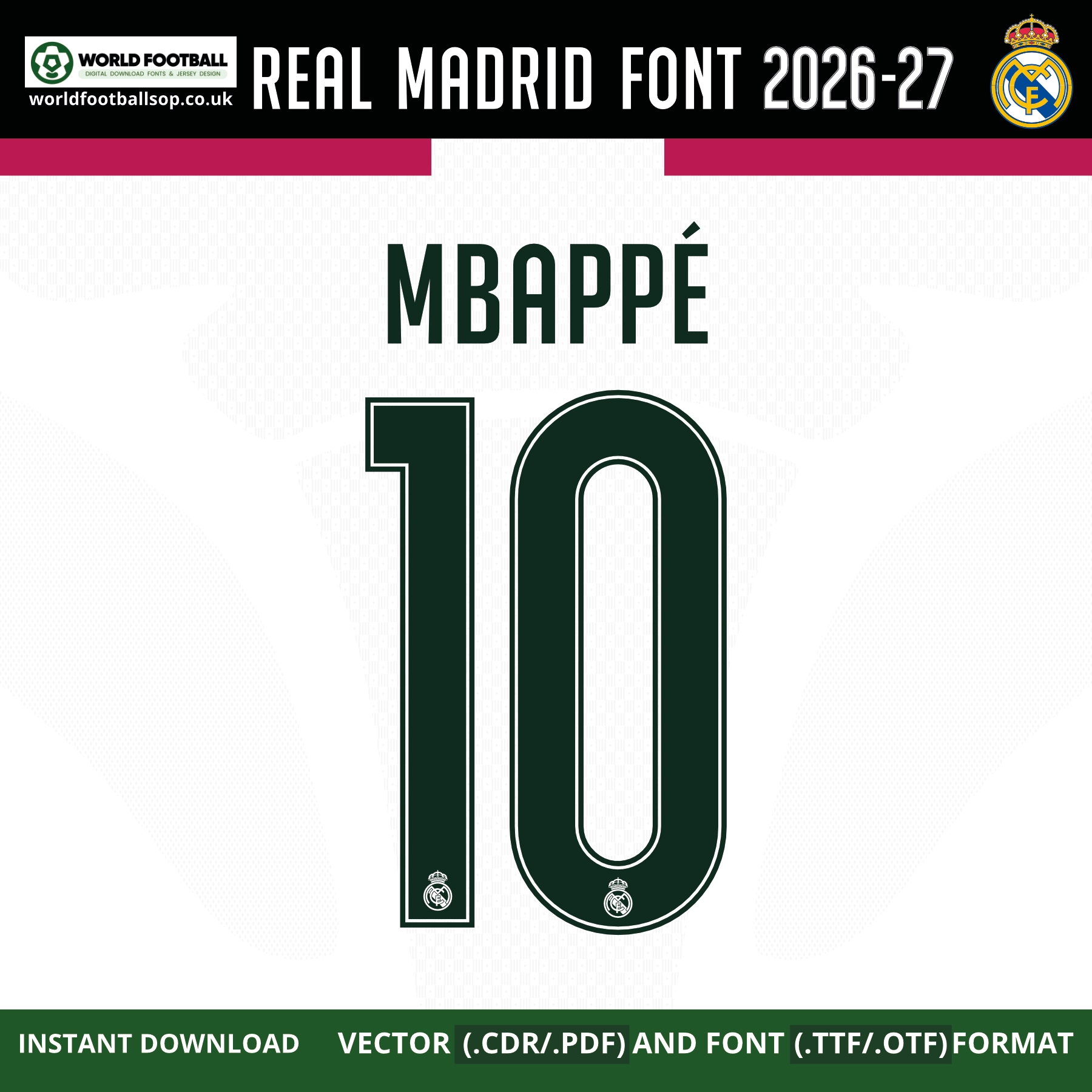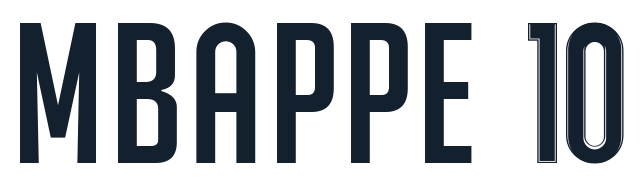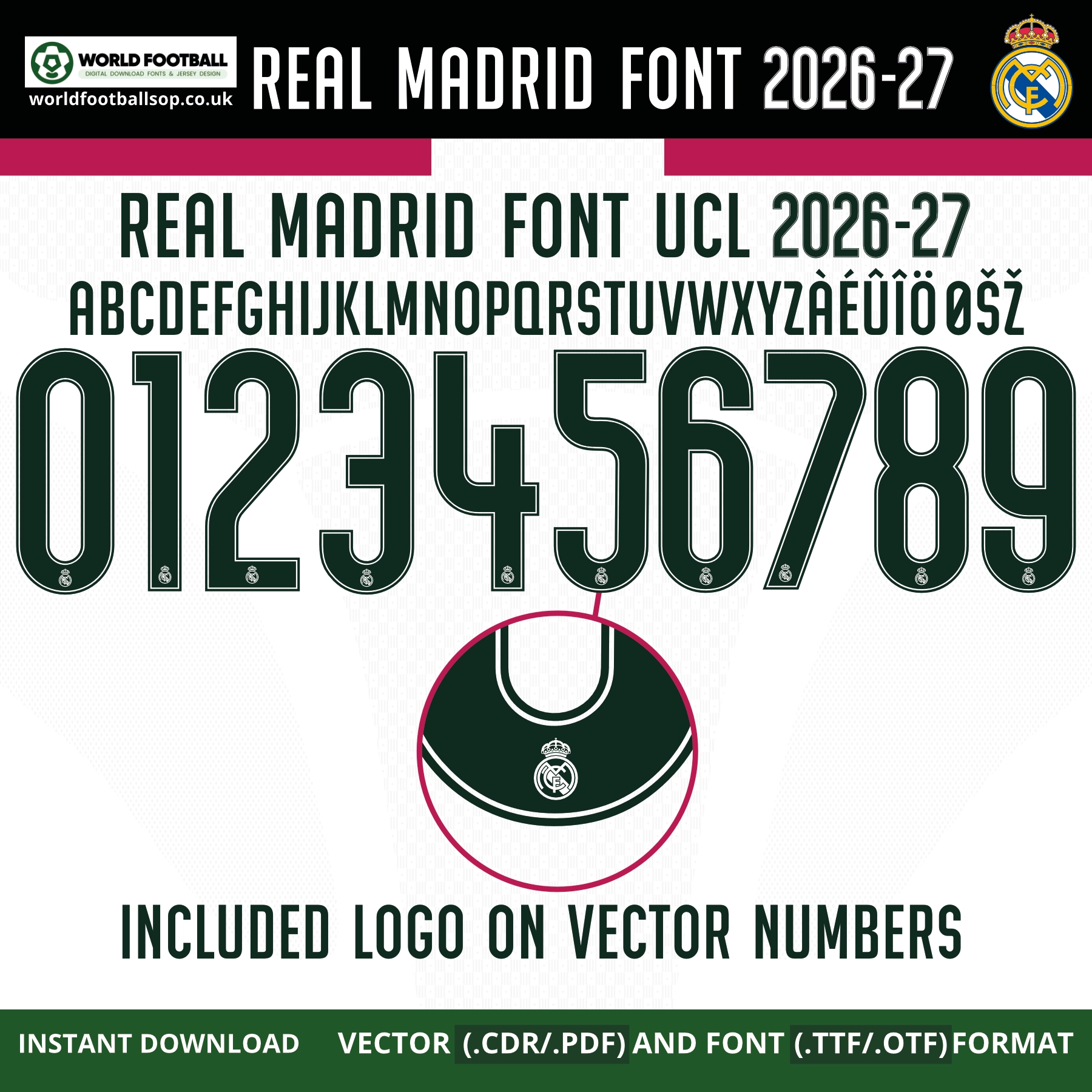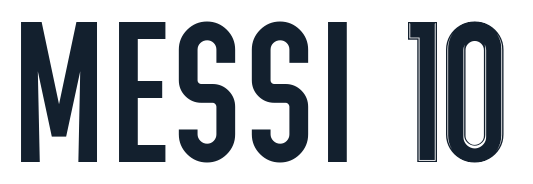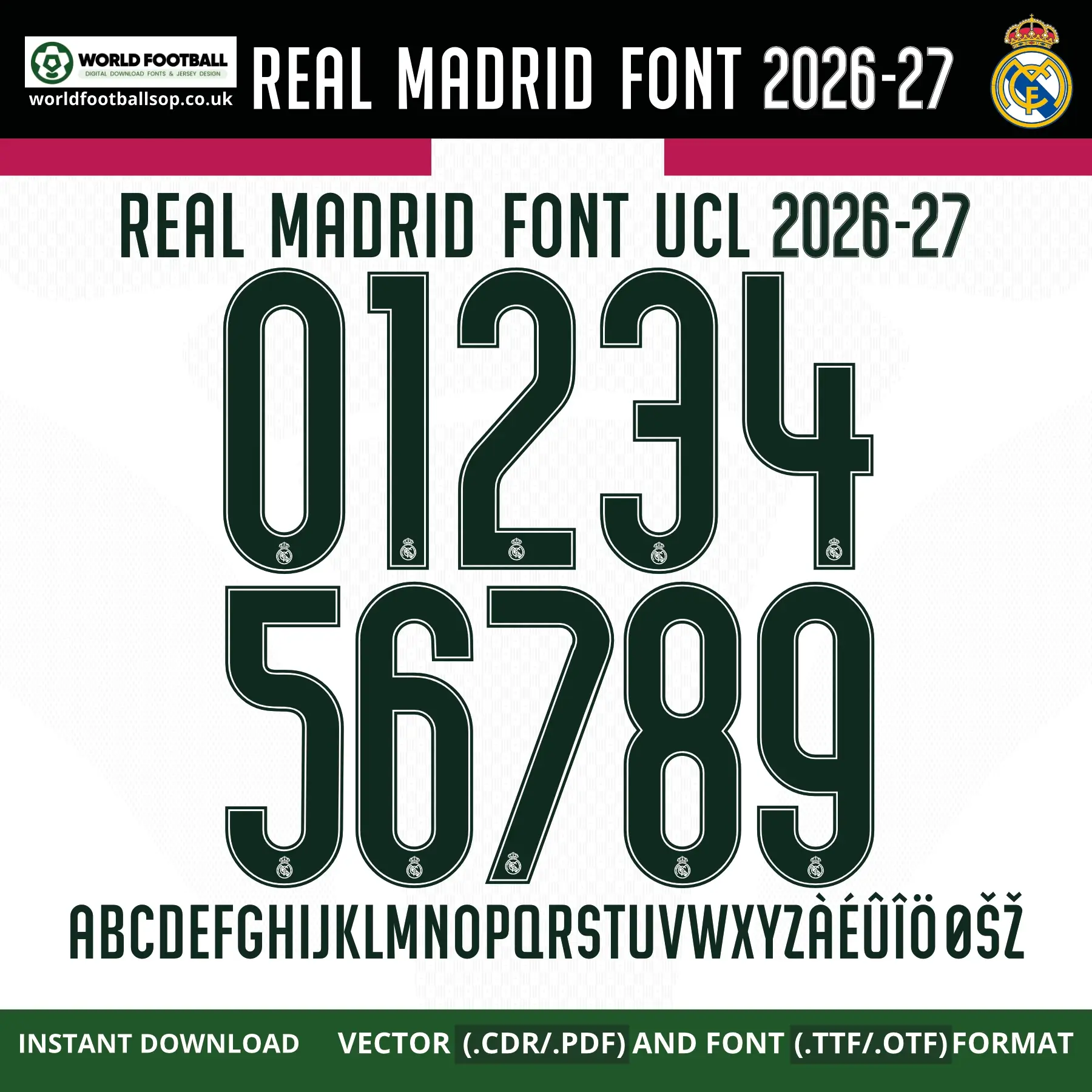
Official-style Real Madrid 2026-27 UCL jersey font — bold dark green block lettering with fine white contour, full A–Z with accents and 0–9 numbers. Instant download: TTF, OTF and vector (CDR, PDF), Real Madrid crest included on vector numbers.
Real Madrid Font UCL 2026-27 – Official‑style Jersey Typography
This Real Madrid Font UCL 2026-27 recreates the bold, wide block lettering used on Real Madrid’s iconic white home shirts for the 2026-27 UEFA Champions League season at the Bernabéu. The tall, rounded numbers and letters feature a striking deep forest green fill with a sharp thin white inner-outline detail running through each character – a bold colour contrast that makes these numbers instantly stand out on the clean white Real Madrid home kit background with its subtle geometric texture. It is perfect for fans, designers and print shops who want authentic-looking names and numbers on custom Real Madrid jerseys and football graphics.
Full uppercase alphabet A-Z and numbers 0-9 with extended accents (À, É, Û, Î, Ö, Ø, Š, Ž…)
UCL accuracy: Inspired by the exclusive Real Madrid Font UCL 2026-27, not a generic typeface
Striking colour contrast: Deep forest green on white creates the boldest, most legible print result on the classic Real Madrid home kit
Whether you are designing a full squad of custom Real Madrid shirts or a single fan jersey with your own name and number, this Real Madrid Font UCL 2026-27 gives your project a professional, Bernabéu-worthy look.